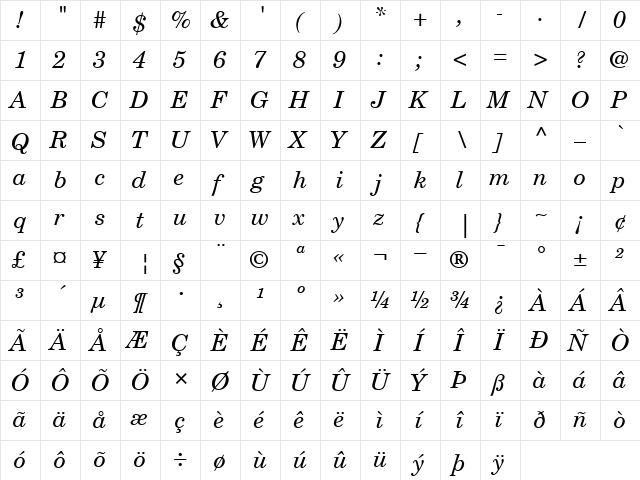
NewCenturySchoolbook-Book BookItalic
Design Context for NewCenturySchoolbook-Book Typeface
NewCenturySchoolbook-Book takes a measured approach to typography — its balanced proportions and neutral character make it a reliable workhorse for both digital and print work. The dynamic lean of this cut emphasises speed and emphasis in any layout.
Pro Tip: Try NewCenturySchoolbook-Book for annotation and caption copy alongside an upright companion — the contrast in angle creates a dynamic but ordered typographic system.